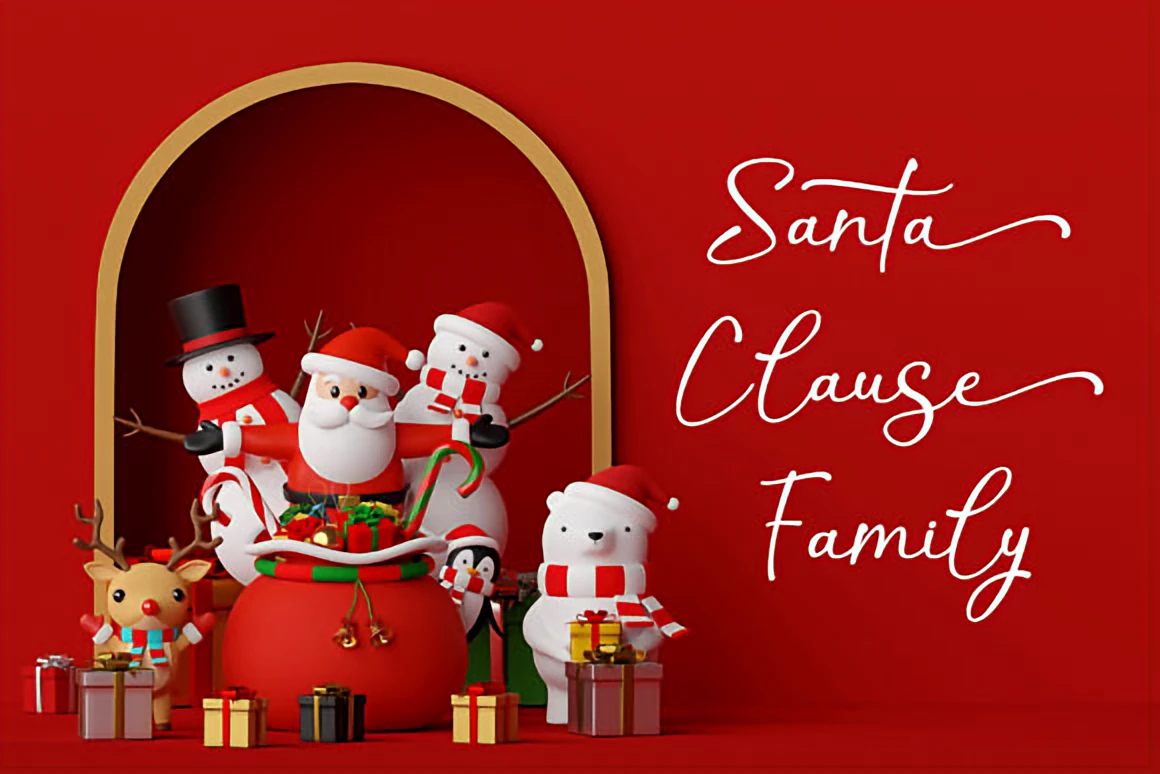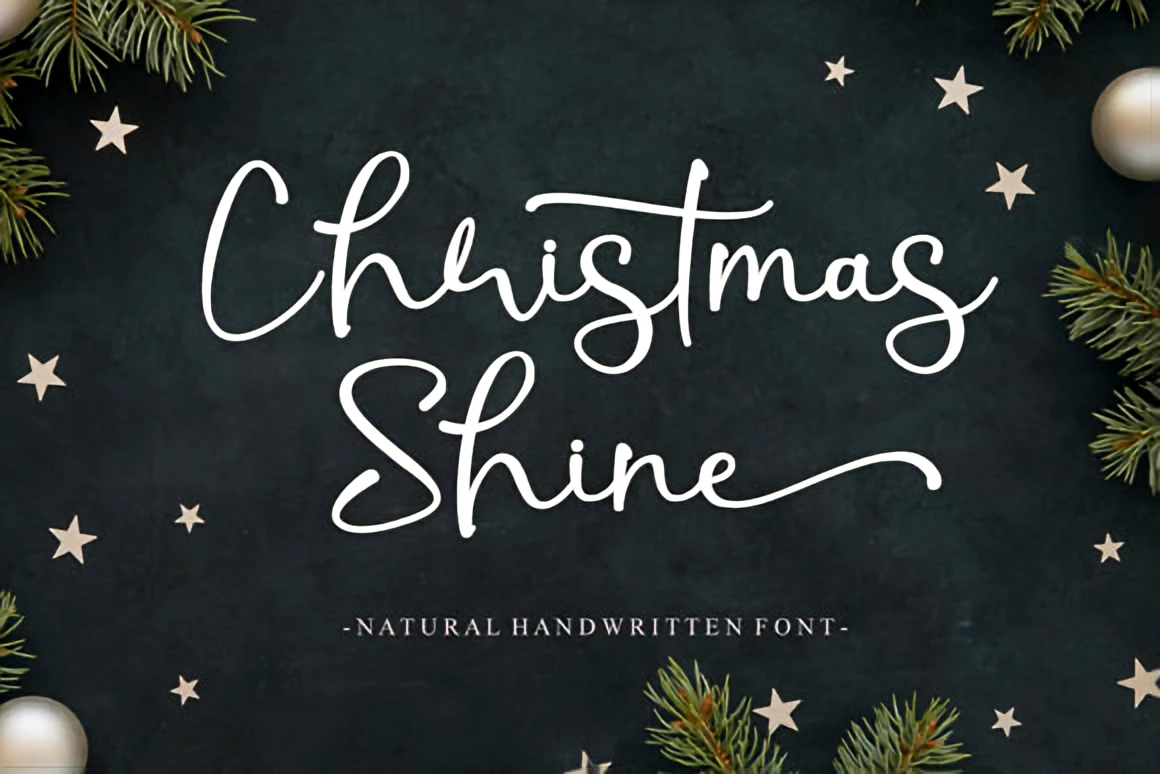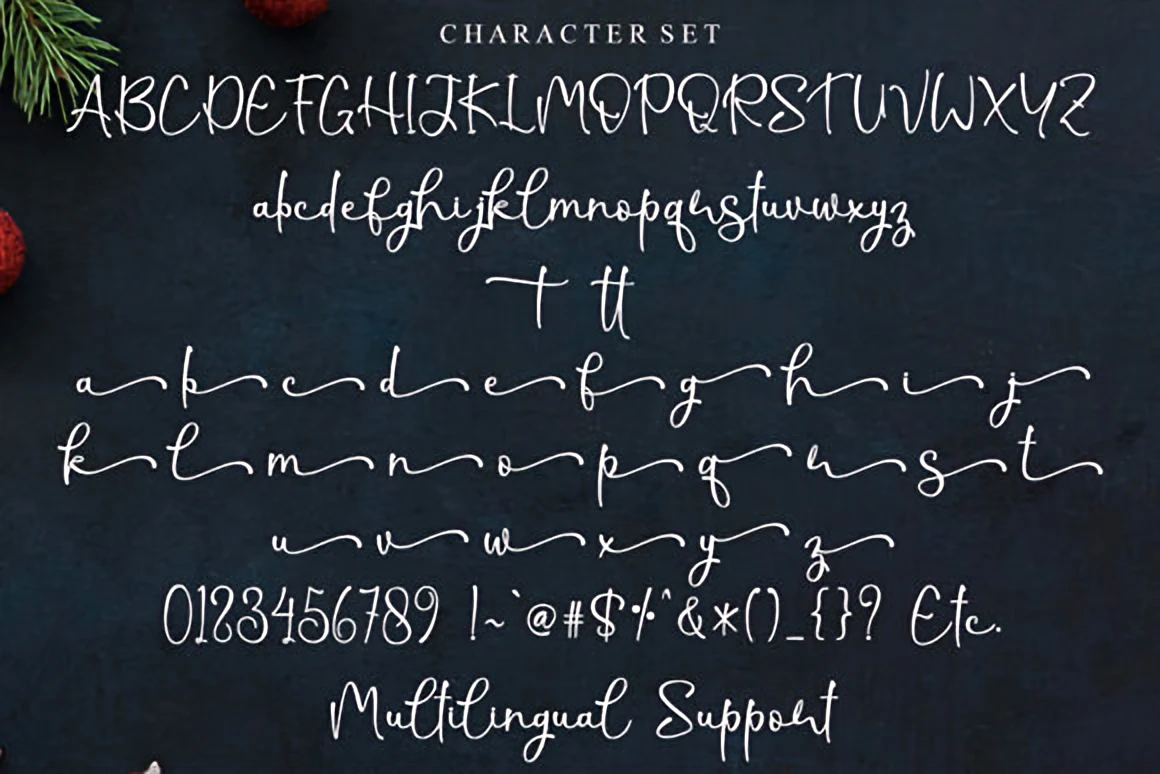
Christmas Shine is a stylish, handwritten font that adds a touch of class and warmth to your projects. Its smooth lines and modern feel make it great for both holiday designs and year-round use.
This font is ideal for things like logos, wedding invites, packaging, cards, and social media. If you want to create a high-end feel for a wedding, holiday party, or winter promotion, Christmas Shine can help.
It’s easy to use with programs like Canva, Procreate, Photoshop, and Illustrator because all the special characters are simple to find. This makes it a good pick for adding a personal touch to things like flower designs, makeup brands, blogs, and store logos.
Christmas Shine works well for many different projects, from Christmas cards to Valentine’s Day designs, and from wedding invites to gift tags. Its pretty curves and expressive style mean it’s not just for Christmas, but can add beauty to any design.
Use the Christmas Shine Font to bring a bit of elegance and holiday charm to your work. It’s a font you can use for holidays, weddings, and fancy brands.